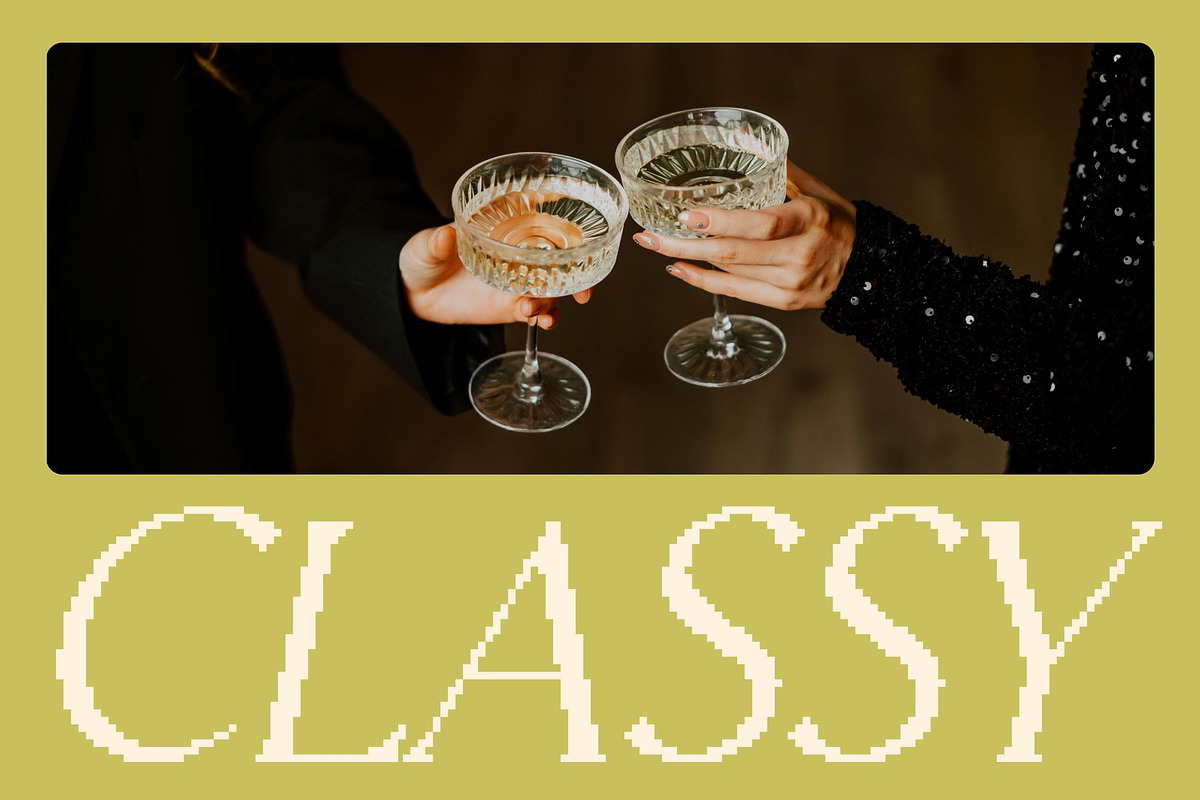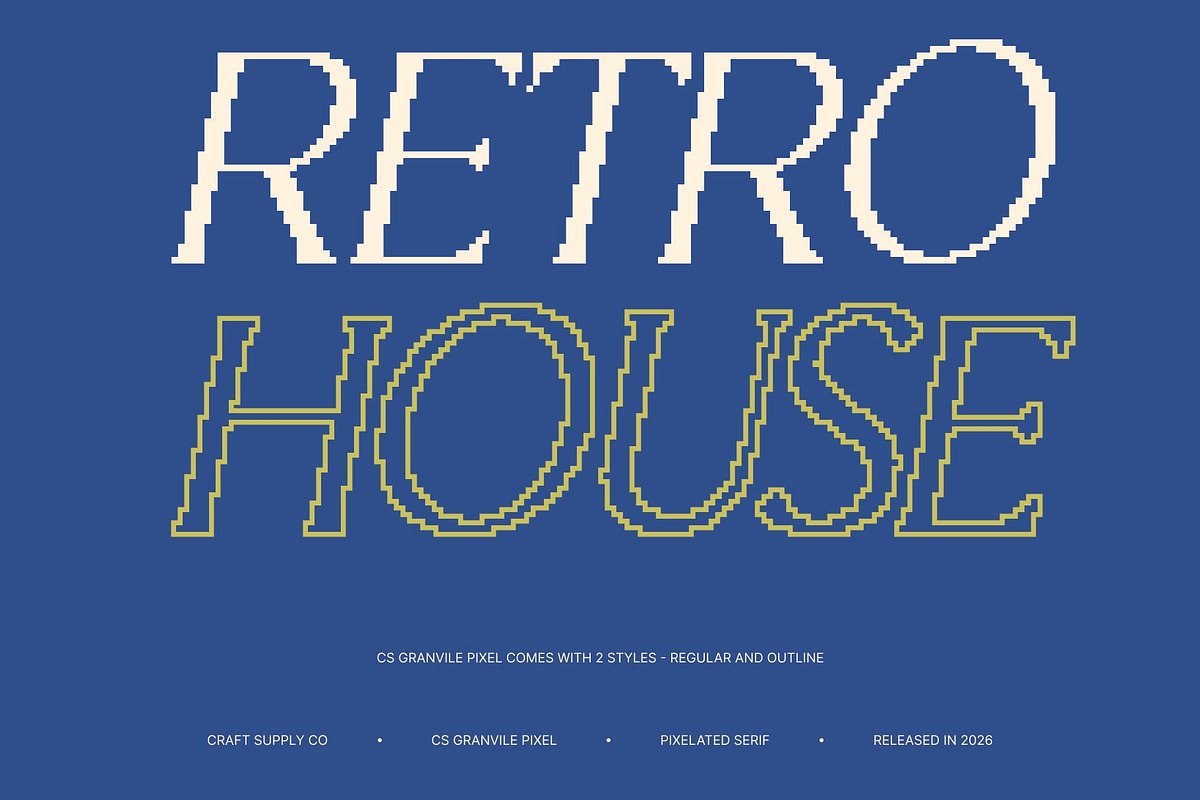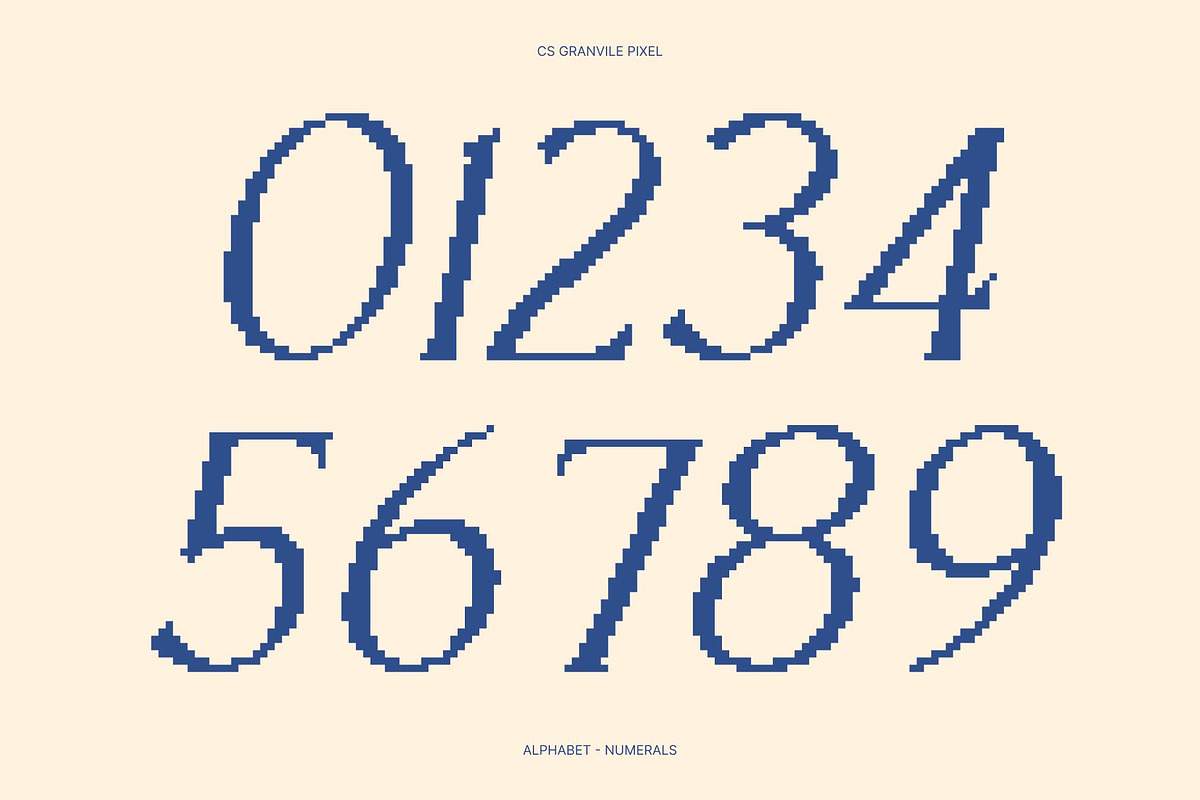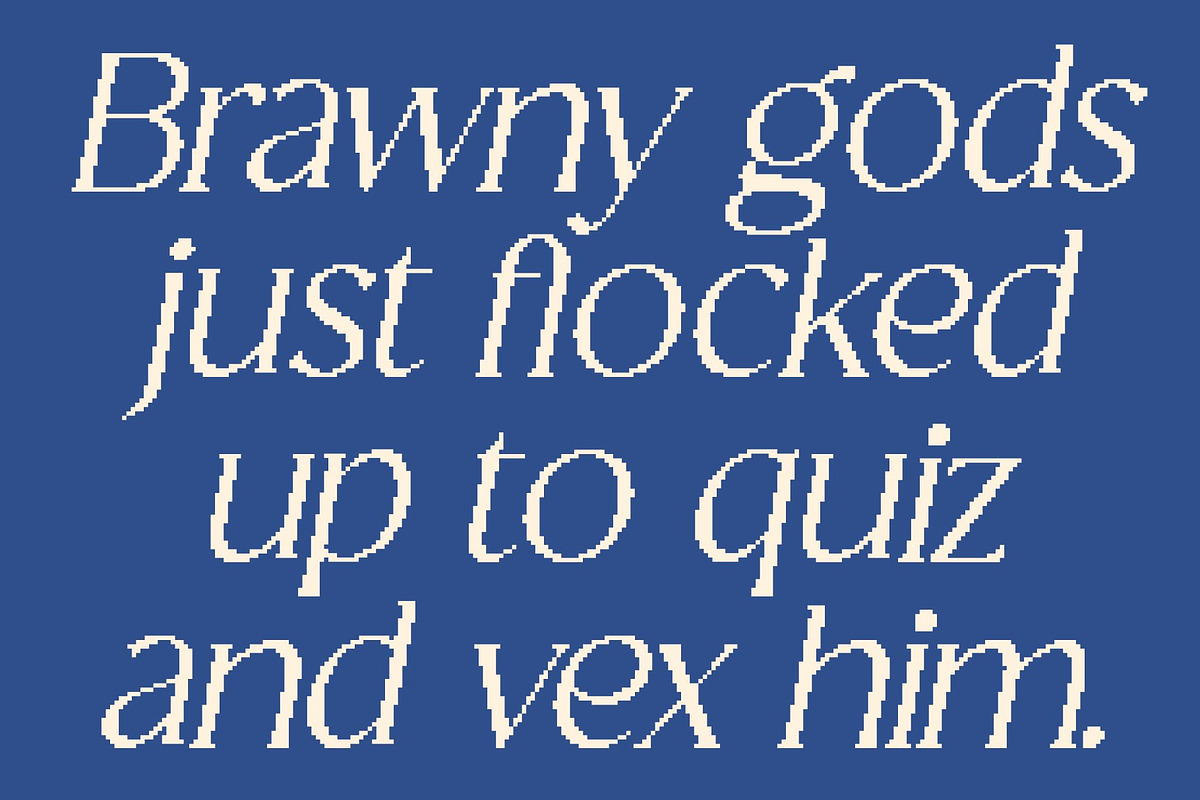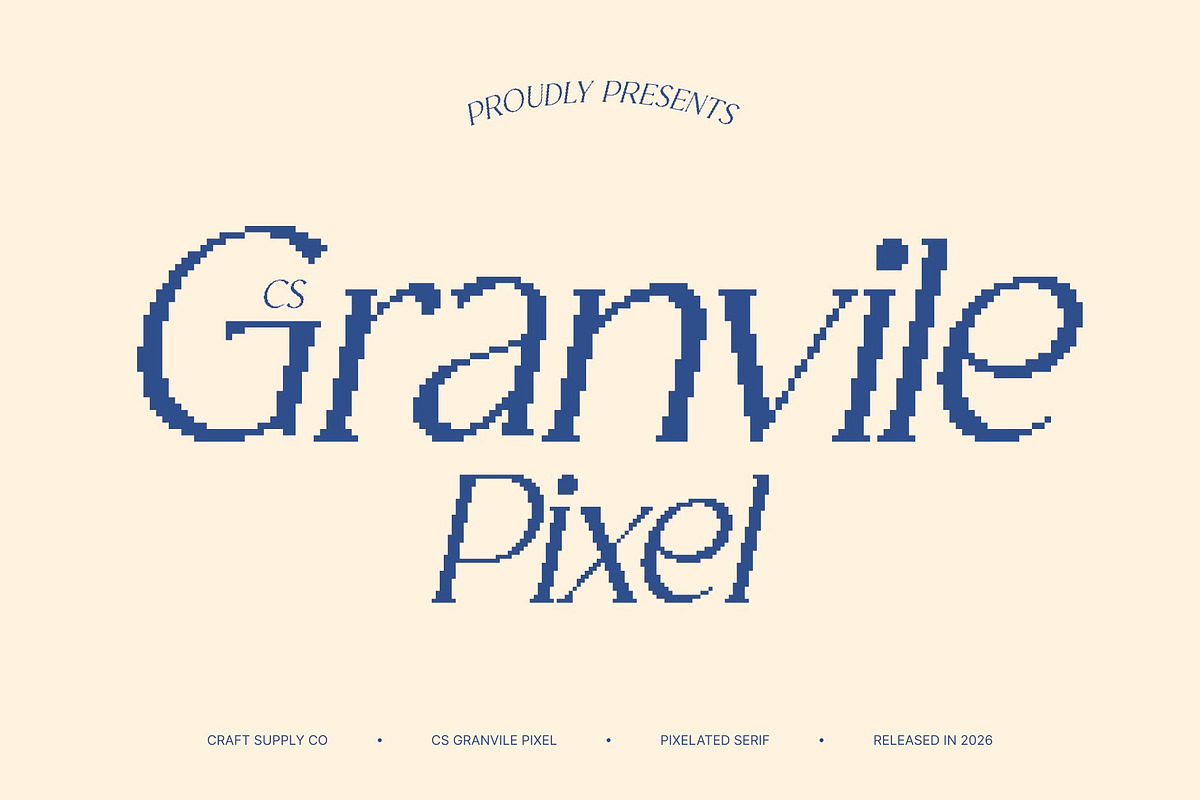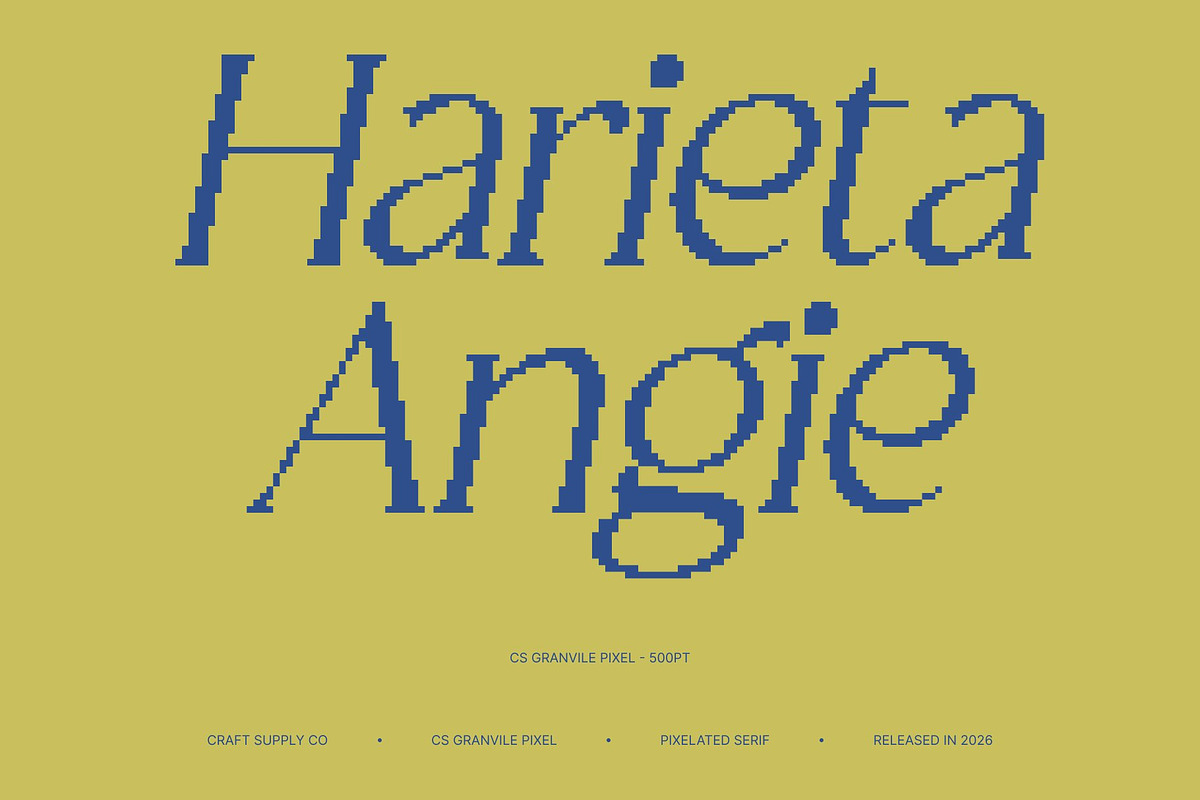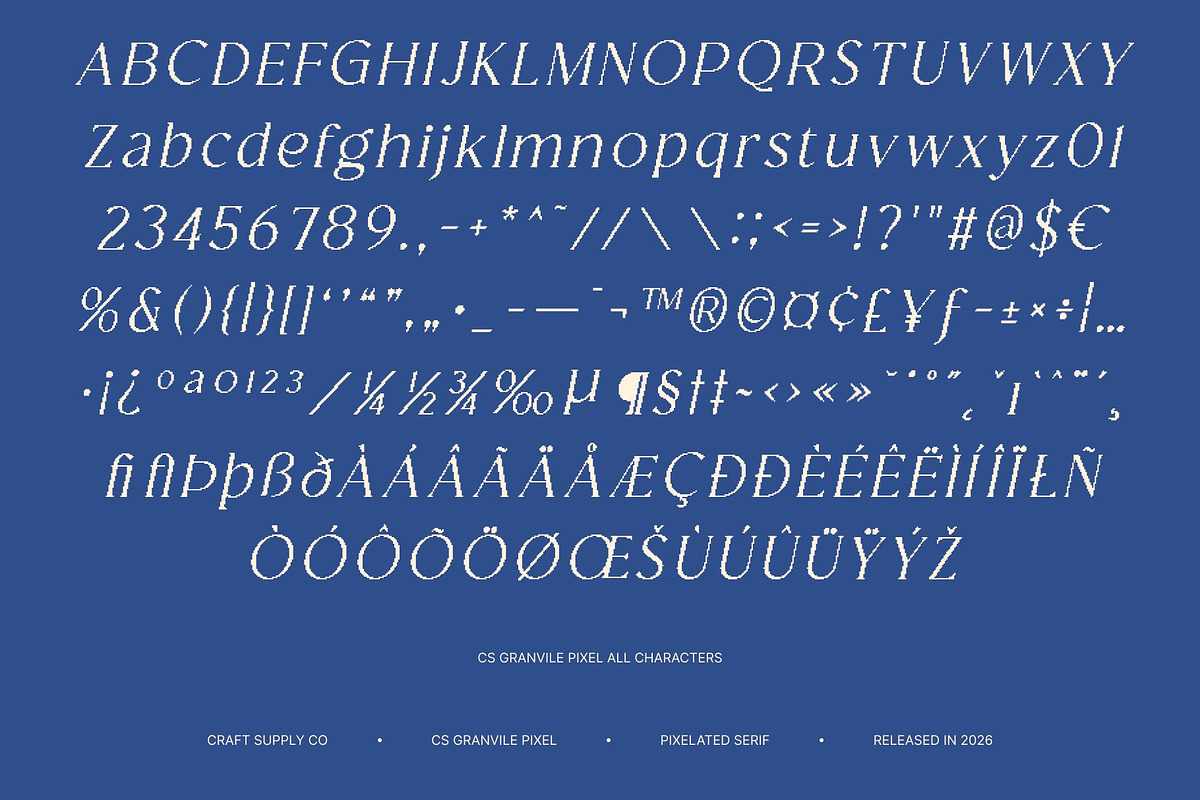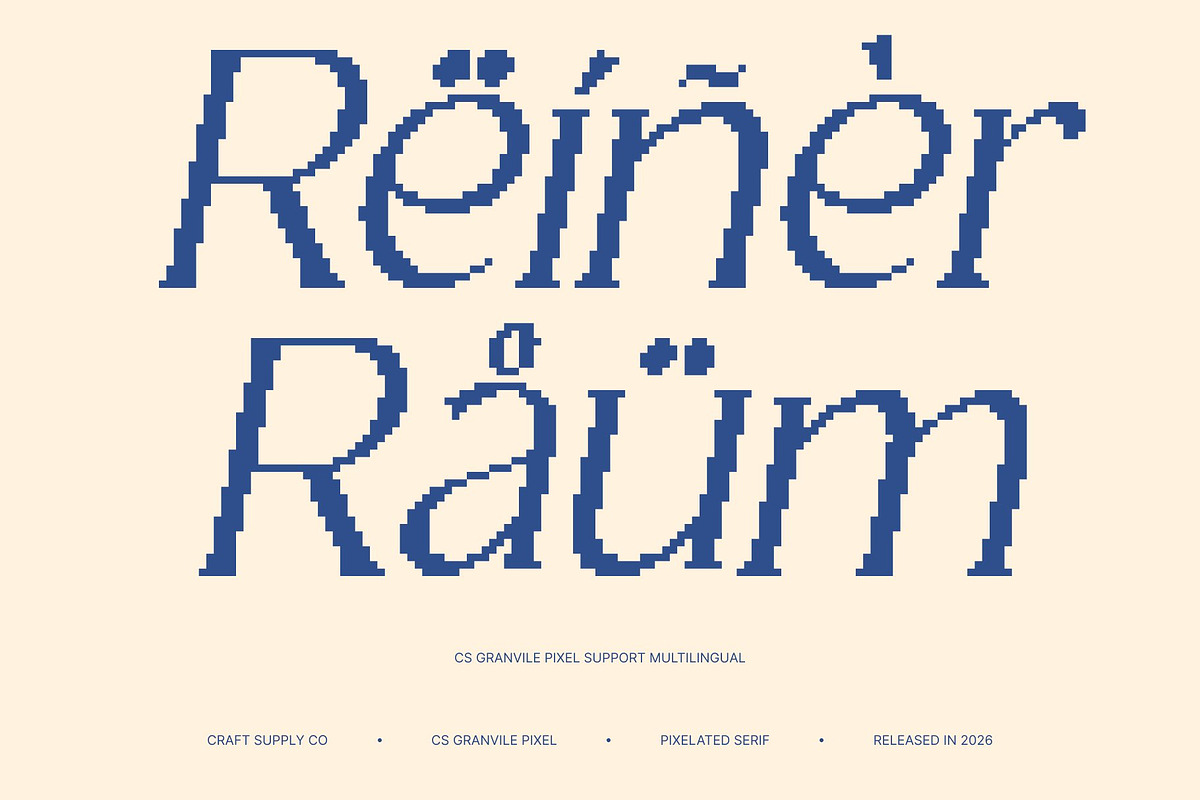
CS Granvile Pixel
CS Granvile Pixel – Classic Elegance with Refined Digital Sophistication
Timeless Serif with a Luxurious Pixel Character This is an elegant serif font that merges classic sophistication with a distinctive pixel-based structure. Its refined curves and traditional proportions are reinterpreted through a digital, pixel style, creating a unique balance between timeless beauty and retro-technology charm.
Elegant Curves Reimagined in Pixel Precision The smooth, balanced curves of the original serif form are translated into carefully constructed pixels, giving the font a refined yet nostalgic appearance. This pixel precision adds character and texture while preserving clarity and grace. It brings a luxurious feel that still feels structured, controlled, and visually engaging ideal for eye-catching digital and screen-based designs.
Perfect for Luxury, Editorial, and Retro-Digital Design This font shines in luxury branding, editorial layouts, and creative projects that blend elegance with digital or old-technology aesthetics. From fashion-inspired visuals to premium packaging, posters, and experimental editorials, the pixel style adds uniqueness while maintaining a high-end tone.
A Serif That Defines Sophistication in the Pixel Era This font is a statement of refined taste adapted for the digital age. By combining classical serif elegance with pixel craftsmanship, this font delivers understated glamour with a nostalgic tech feel. Ideal for logos, titles, and sophisticated visuals, it reflects elegance, innovation, and timeless style now reimagined for modern screens and retro-inspired creativity.